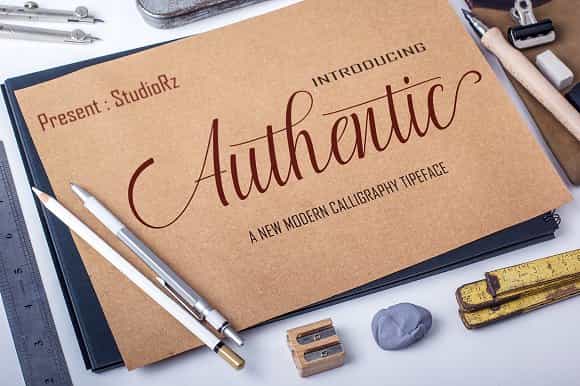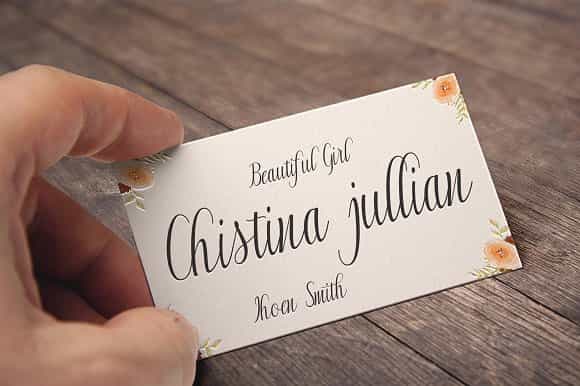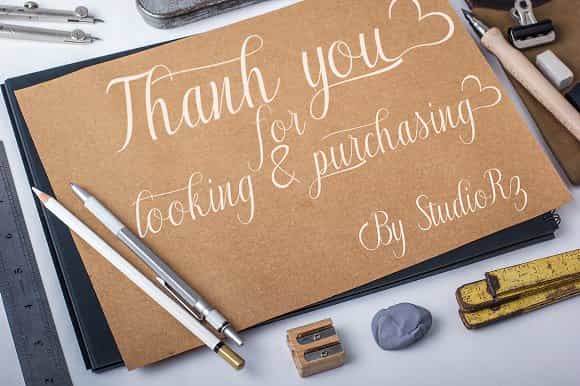
Authentic Modern Calligraphy. This font was created by the owner’s handwriting, it’s a modern calligraphic writing style, and the writing is straightforward and natural. I have a very unique calligraphy style, so it is very suitable for the work of modern design.